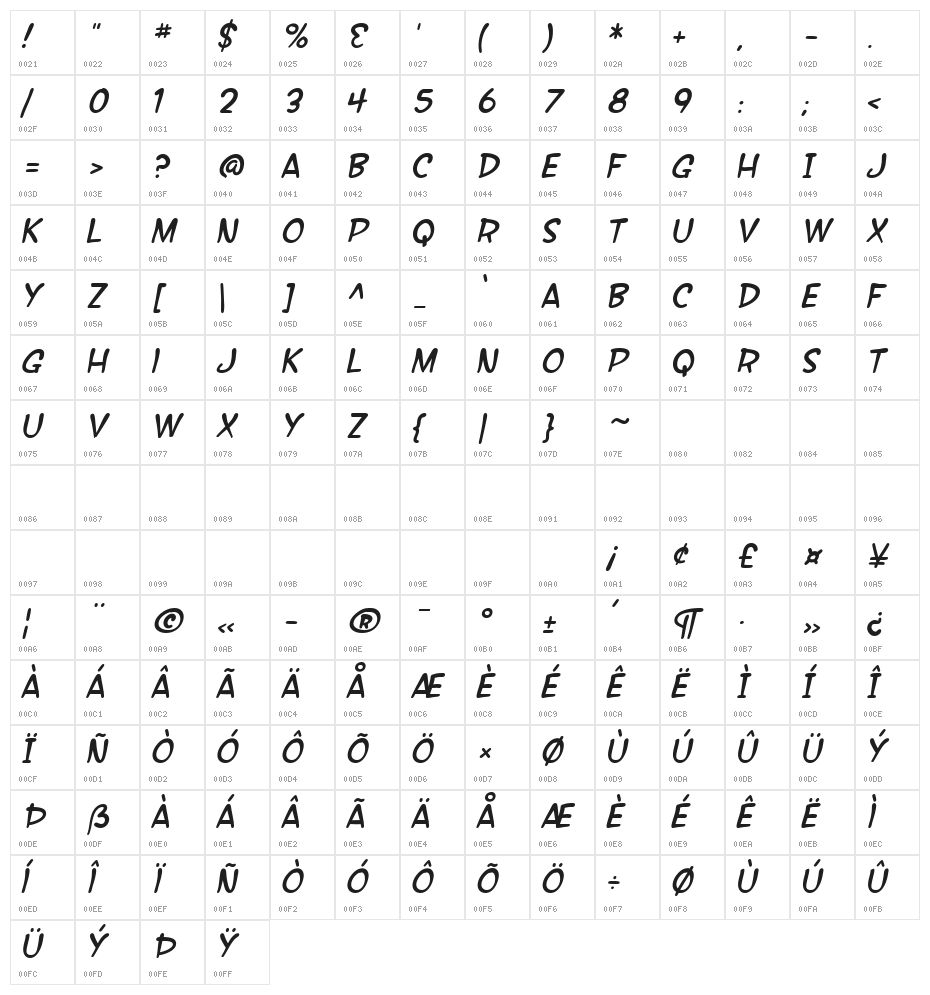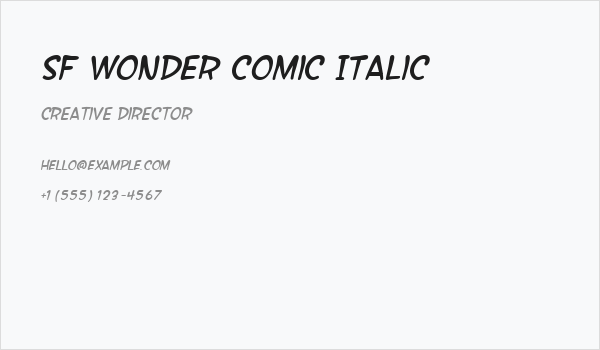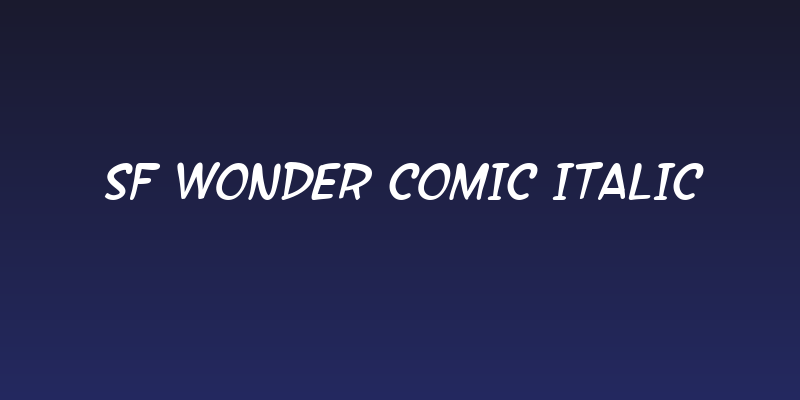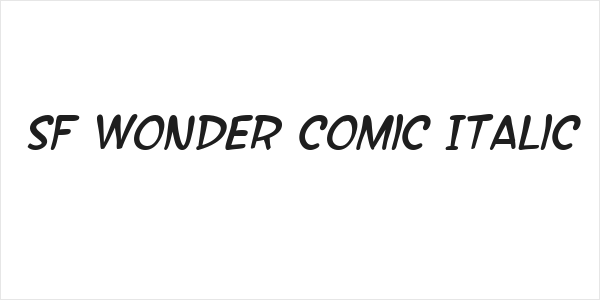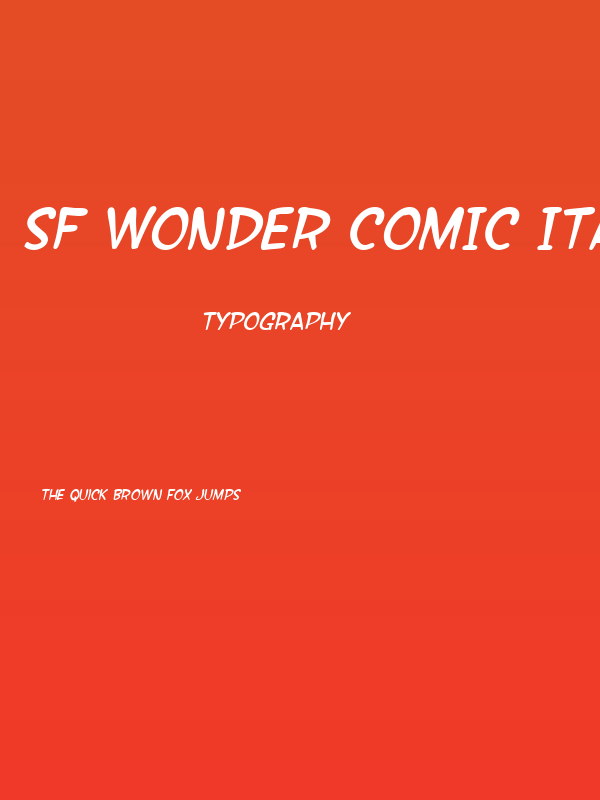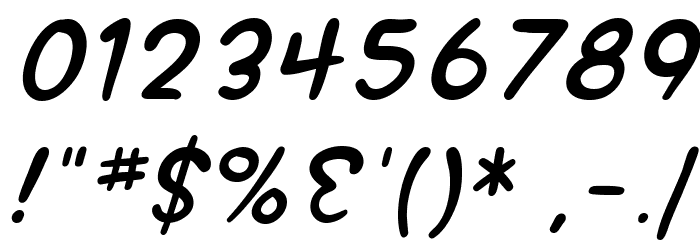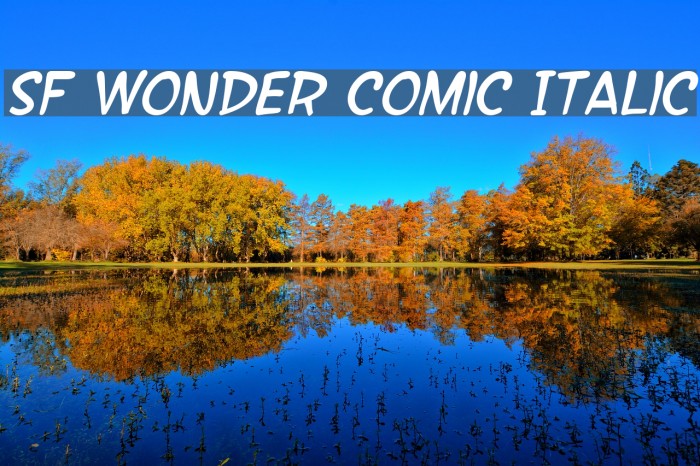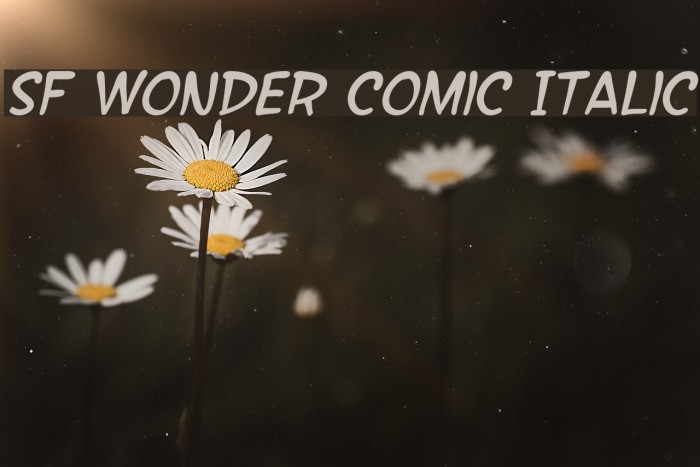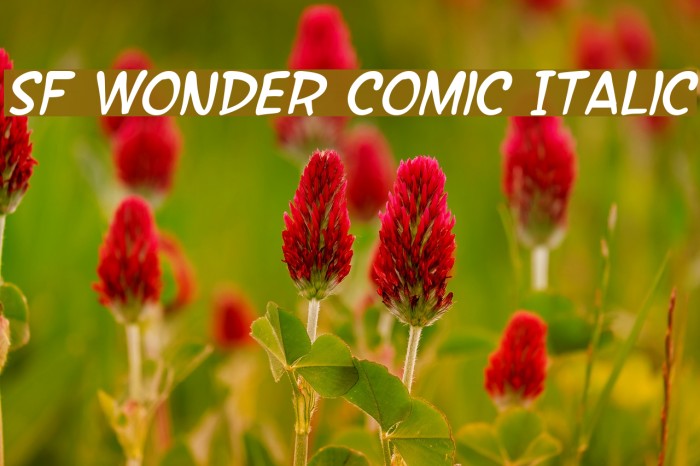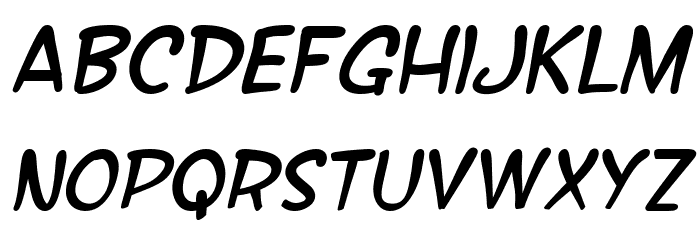
SF Wonder Comic Italic Font
SF Wonder Comic Italic Description
This playful and dynamic font features a handwritten, comic-inspired style with a noticeable slant, giving it an italicized appearance. The letters are bold and rounded, with a casual and friendly vibe that makes it ideal for informal and fun projects. The uppercase and lowercase characters maintain a consistent style, with smooth curves and a slight tilt that enhances its energetic feel. The numbers and special characters are designed to match the overall aesthetic, ensuring a cohesive look across all text elements. The font's unique personality makes it stand out, perfect for capturing attention in creative designs.
| Overall Style | Playful |
| Use Case | Headlines, Logos, Informal Text |
| Proposed Projects | Ideal for comic books, children's books, playful branding, and casual invitations. |